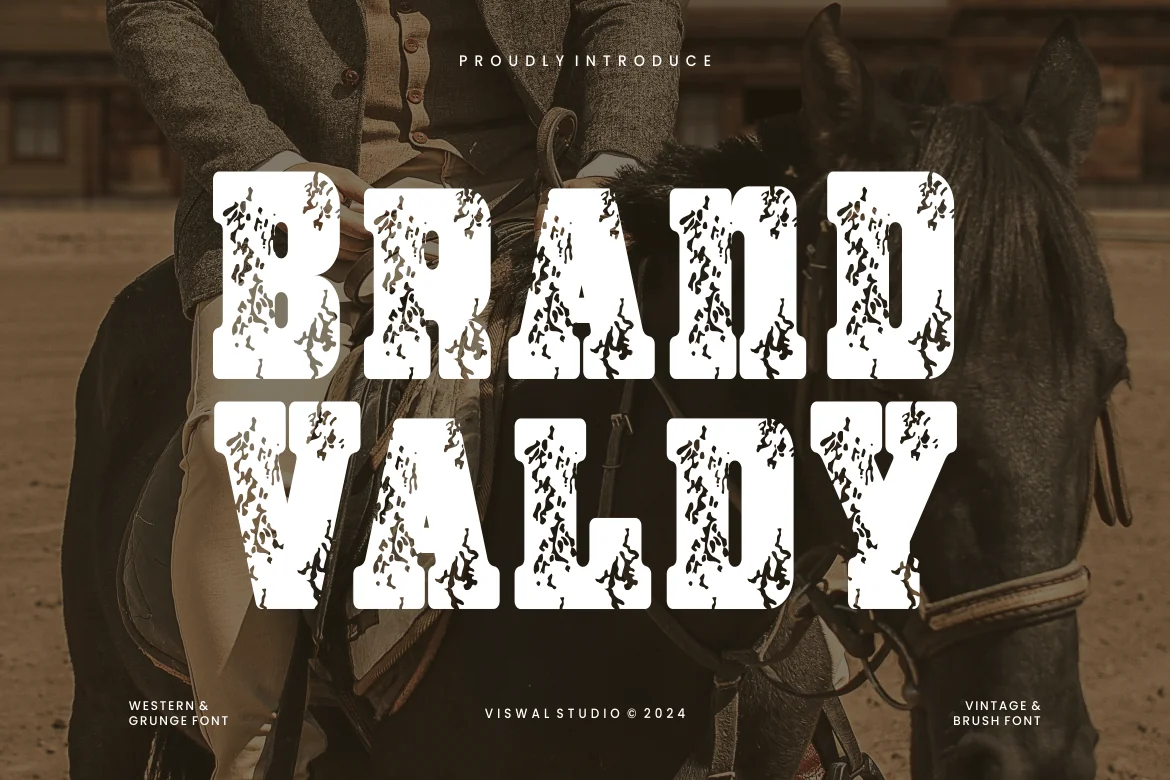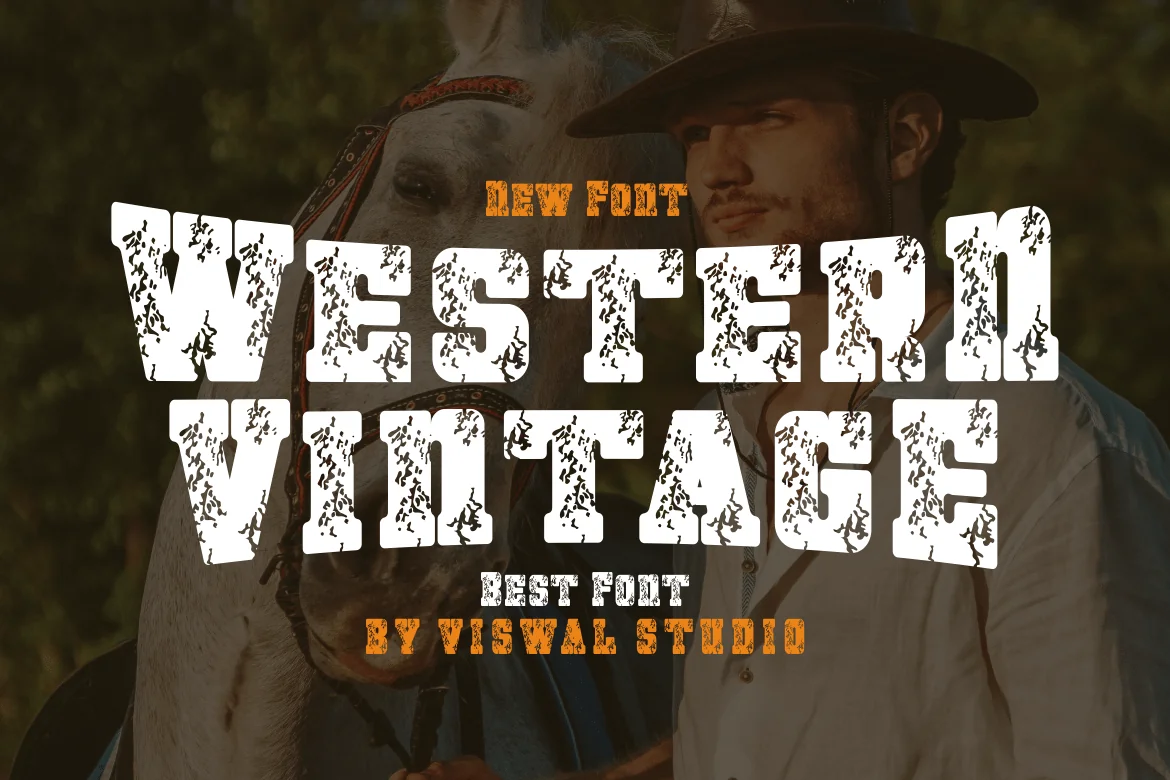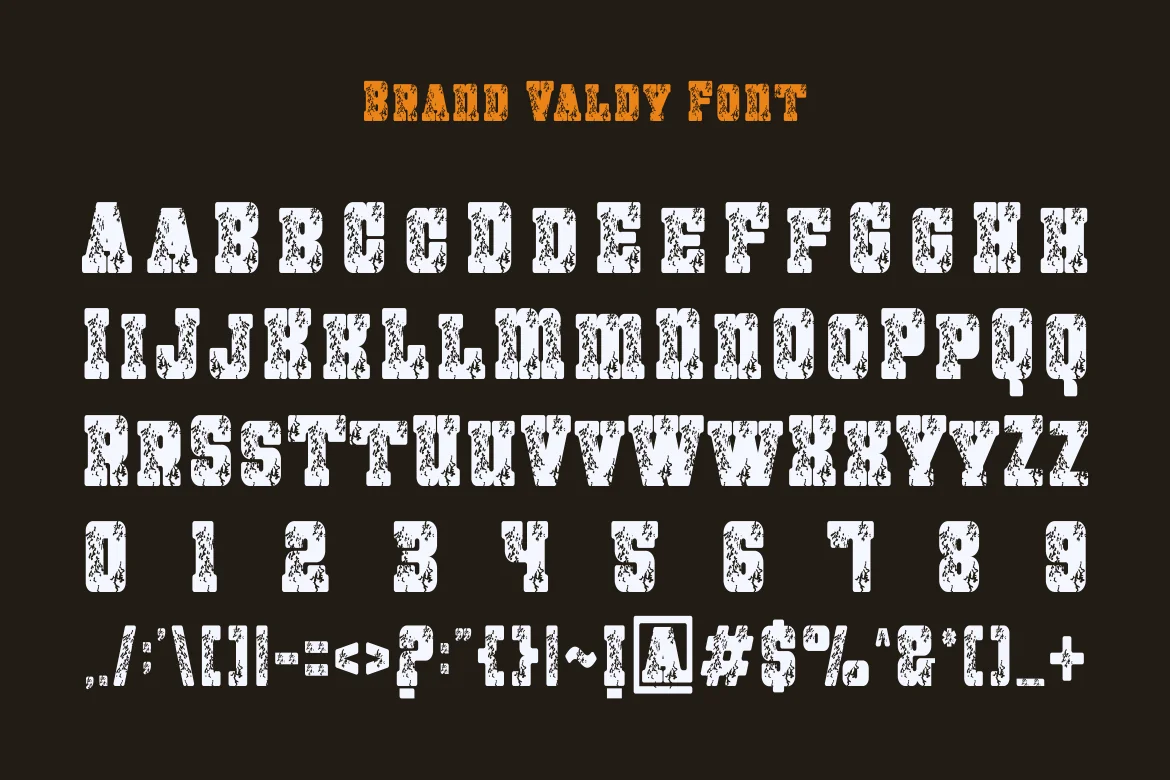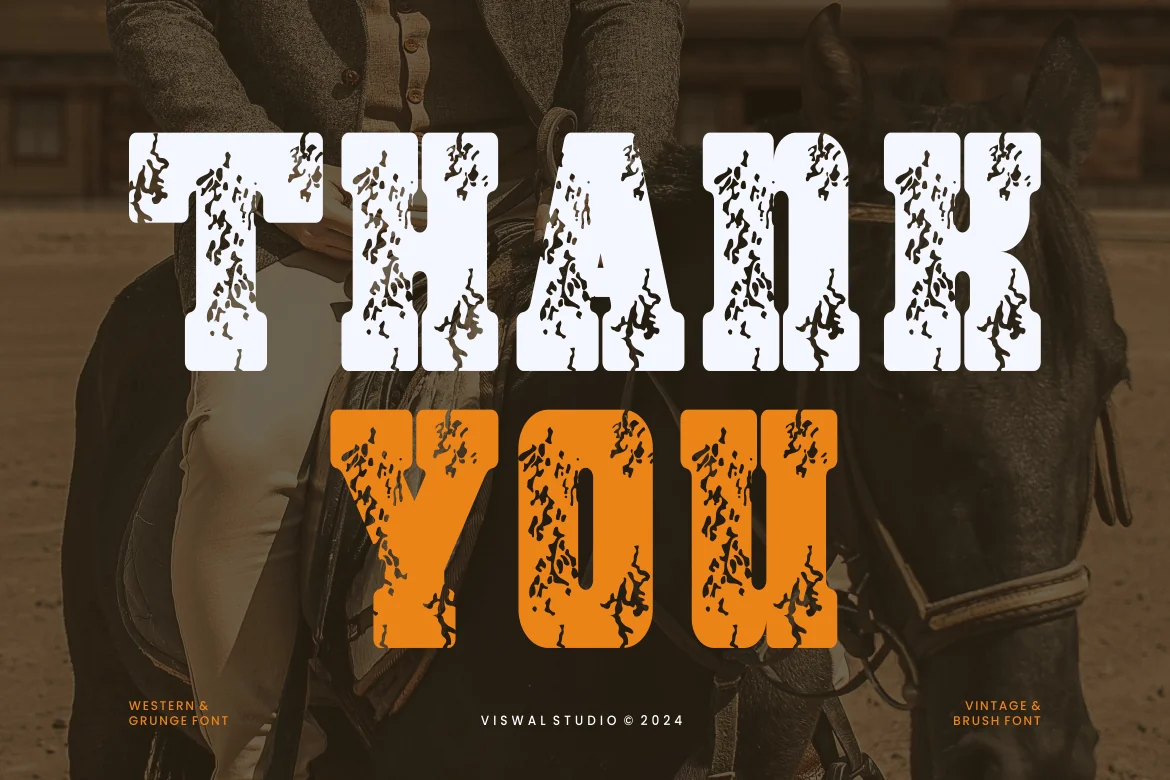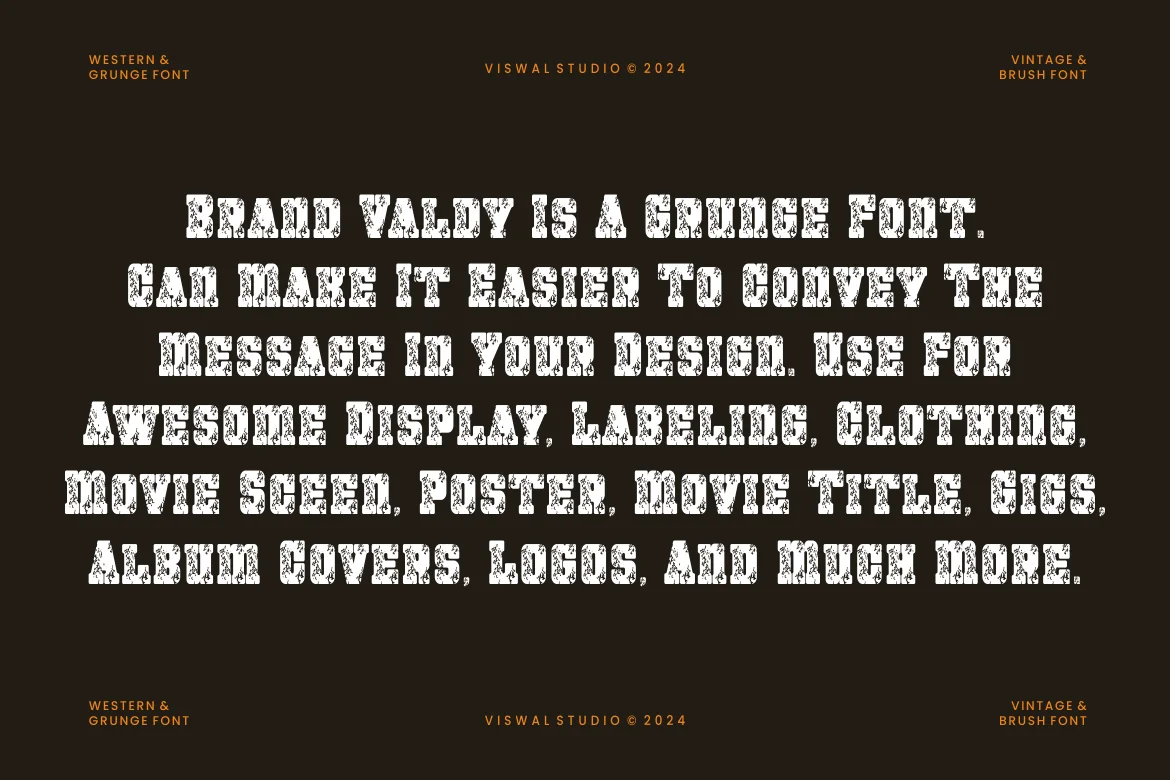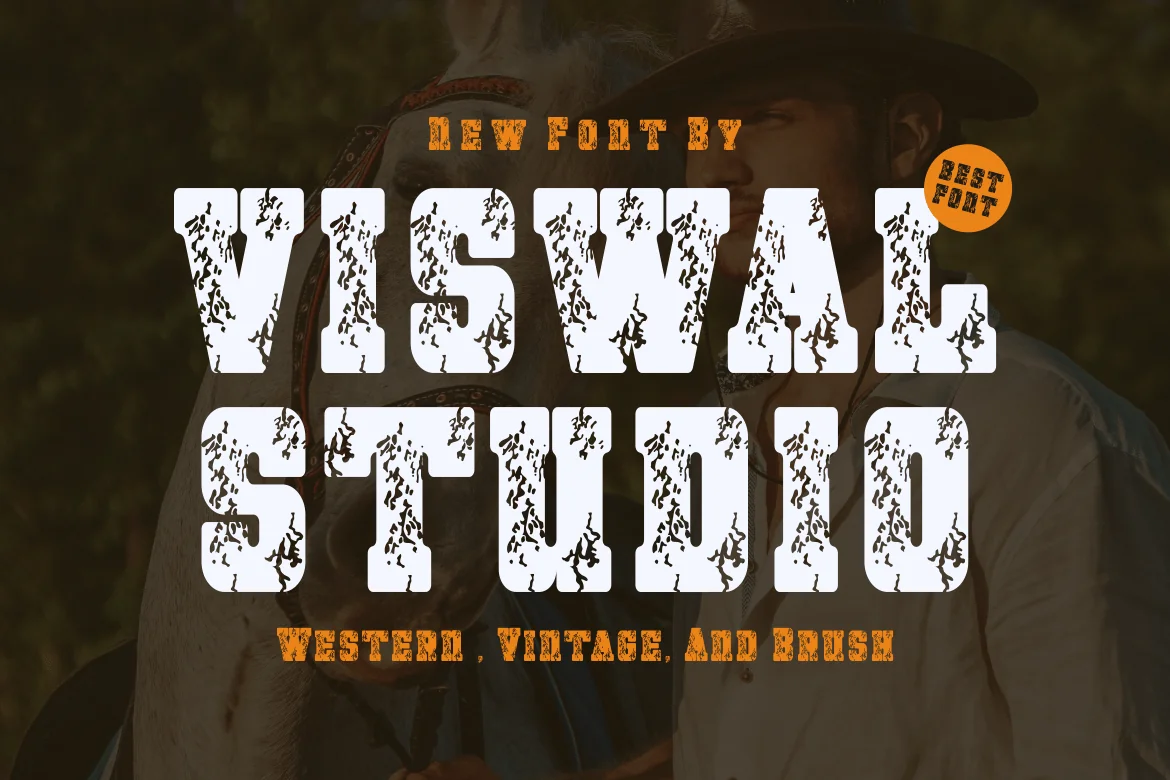
Brand Valdy – Western & Grunge Font
Presenting Brand Valdy – Font is suitable for badge, labels, logo, branding, magazine, poster and etc. Our fonts have Uppercase & Lowercase, Numeral & Punctuation, Multilingual support and Opentype Features. For Amazing designs you can mix with other fonts as a complement.